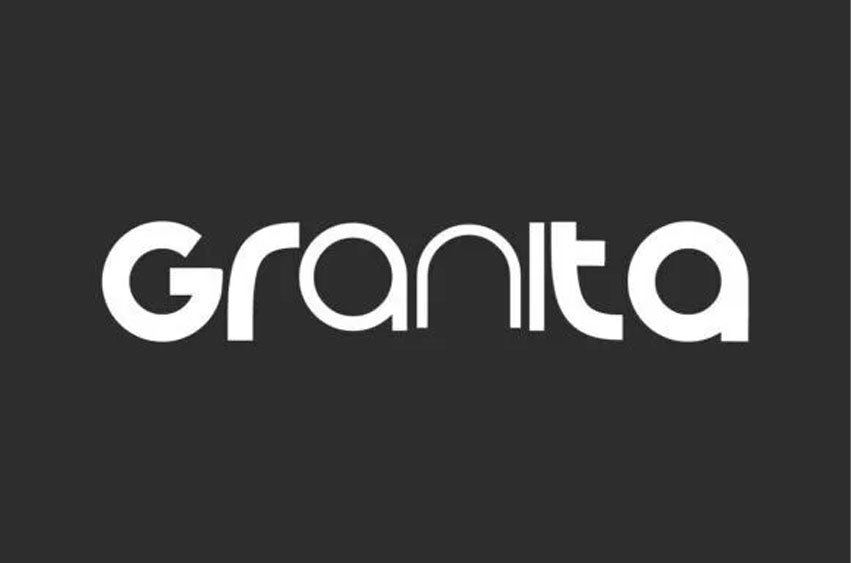
Granita Font is a unique stylish sans-serif display font. The lowercase letters in this font have a circular shape so they give a unique impression that won’t be boring. It will be suitable for many industries, such as café, event organizers, fashion, homeware, kids’ stuff, movies, printing, restaurants, sport, etc. This font is PUA encoded which means you can access all of the amazing glyphs and ligatures with ease!